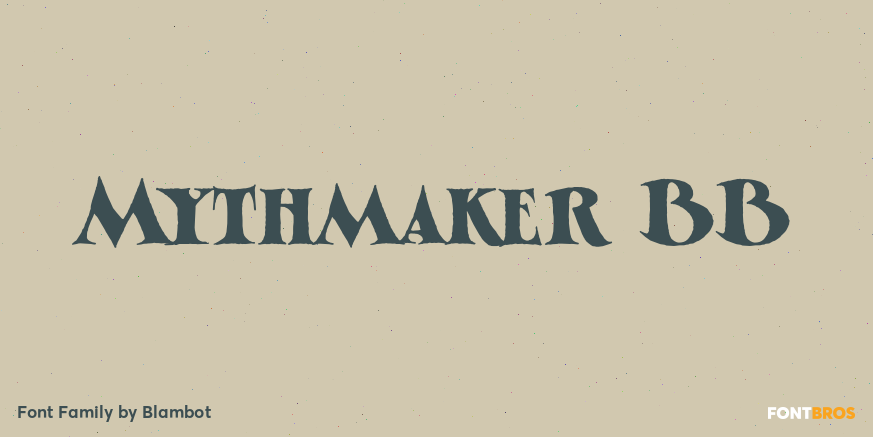
Mythmaker BB
About Mythmaker BB
MythMaker conjures images of lands long forgotten, armored heroes, and dragons guarding lost treasure. This rough-hewn, all-caps font family was designed for header text and comes with Regular and Alternates. It has an ogre-sized compliment of European…